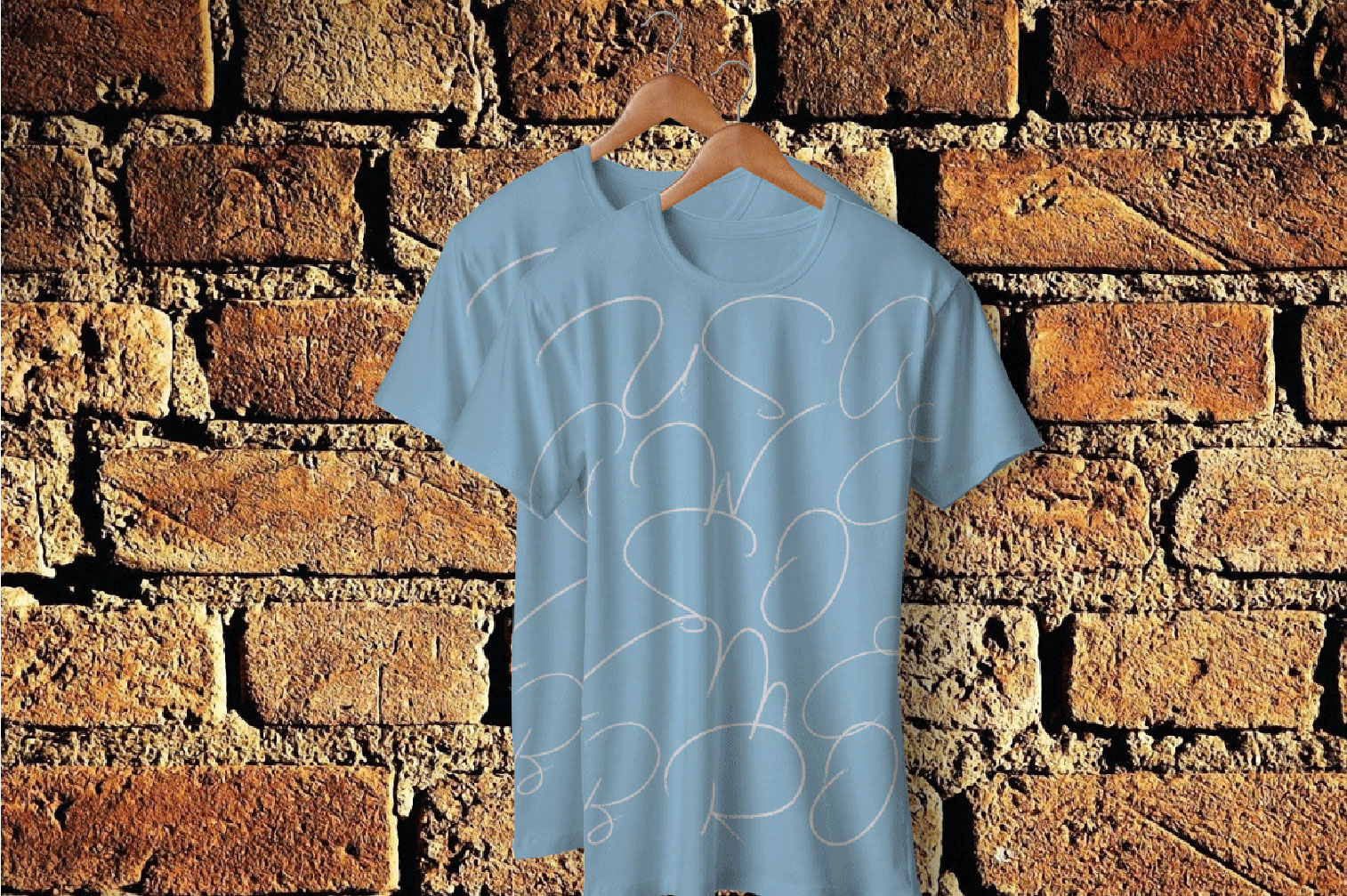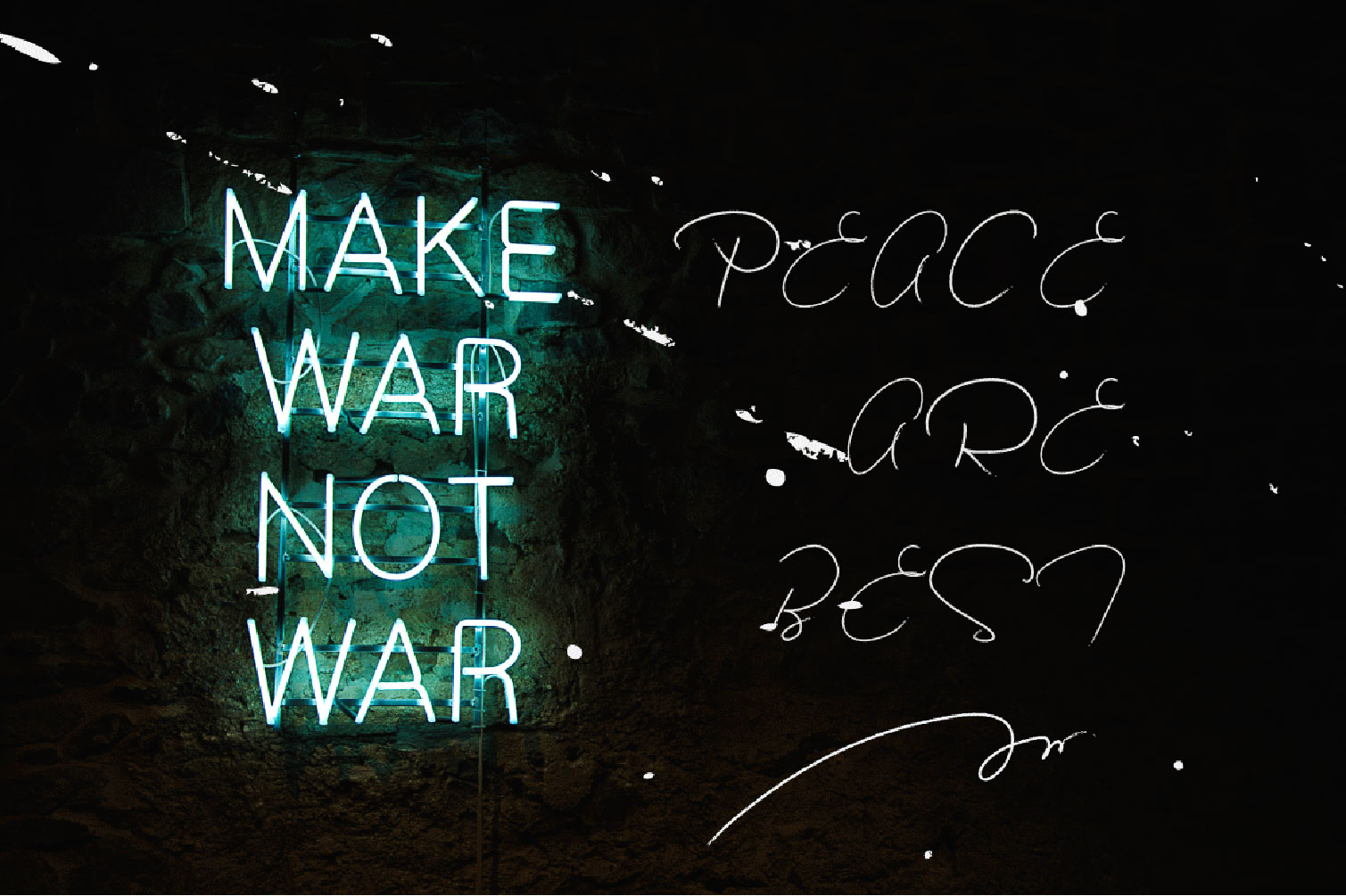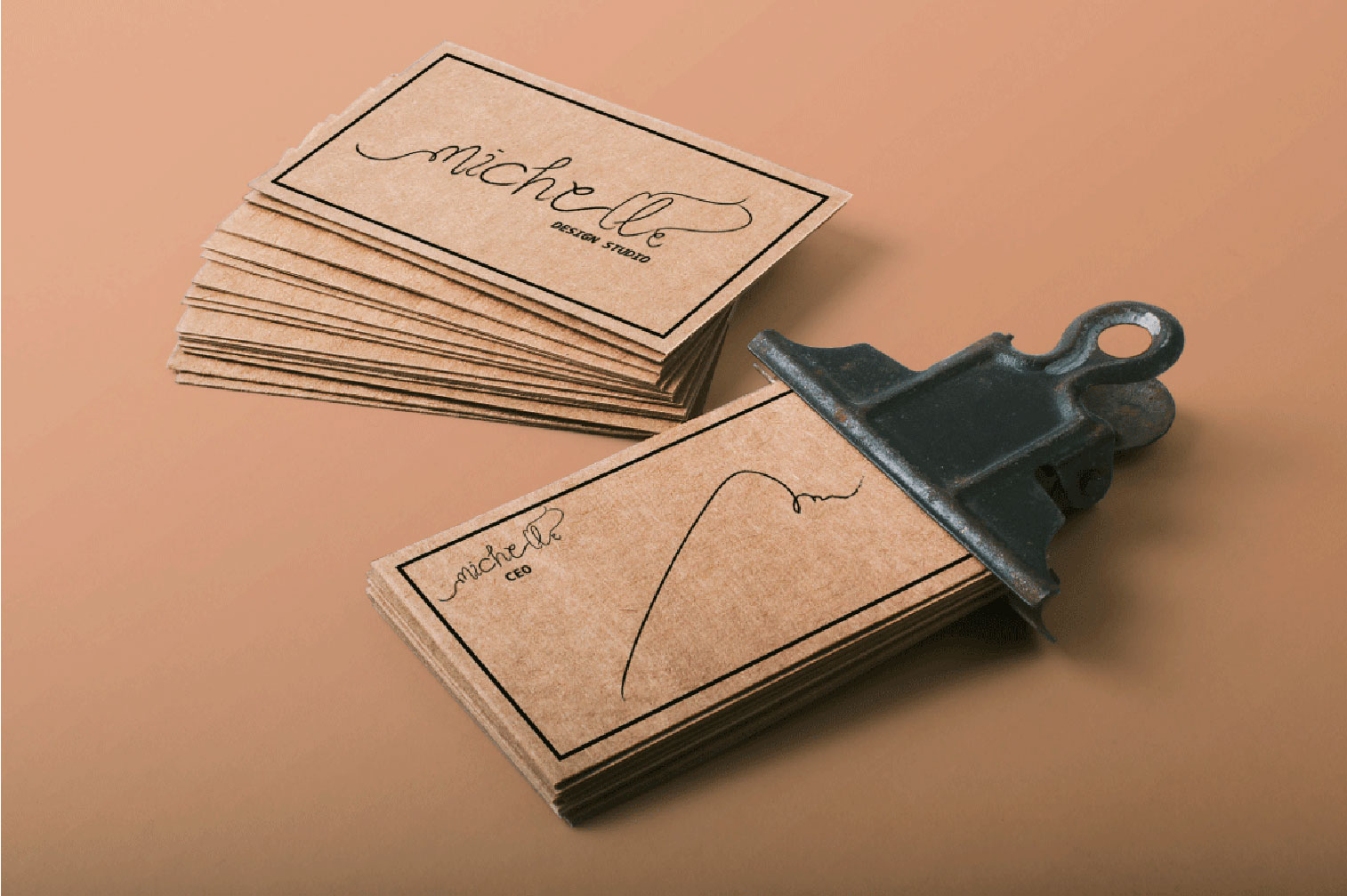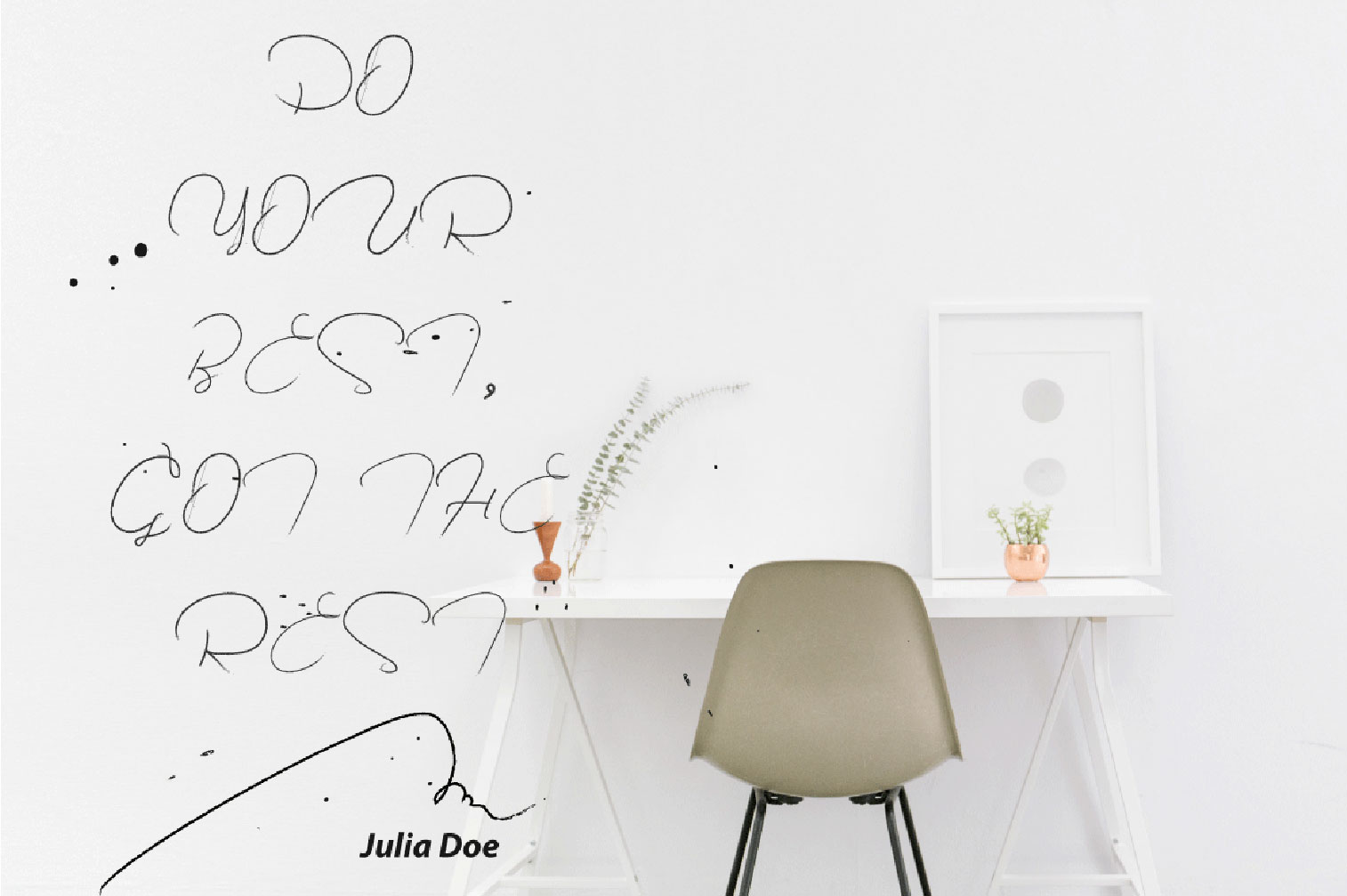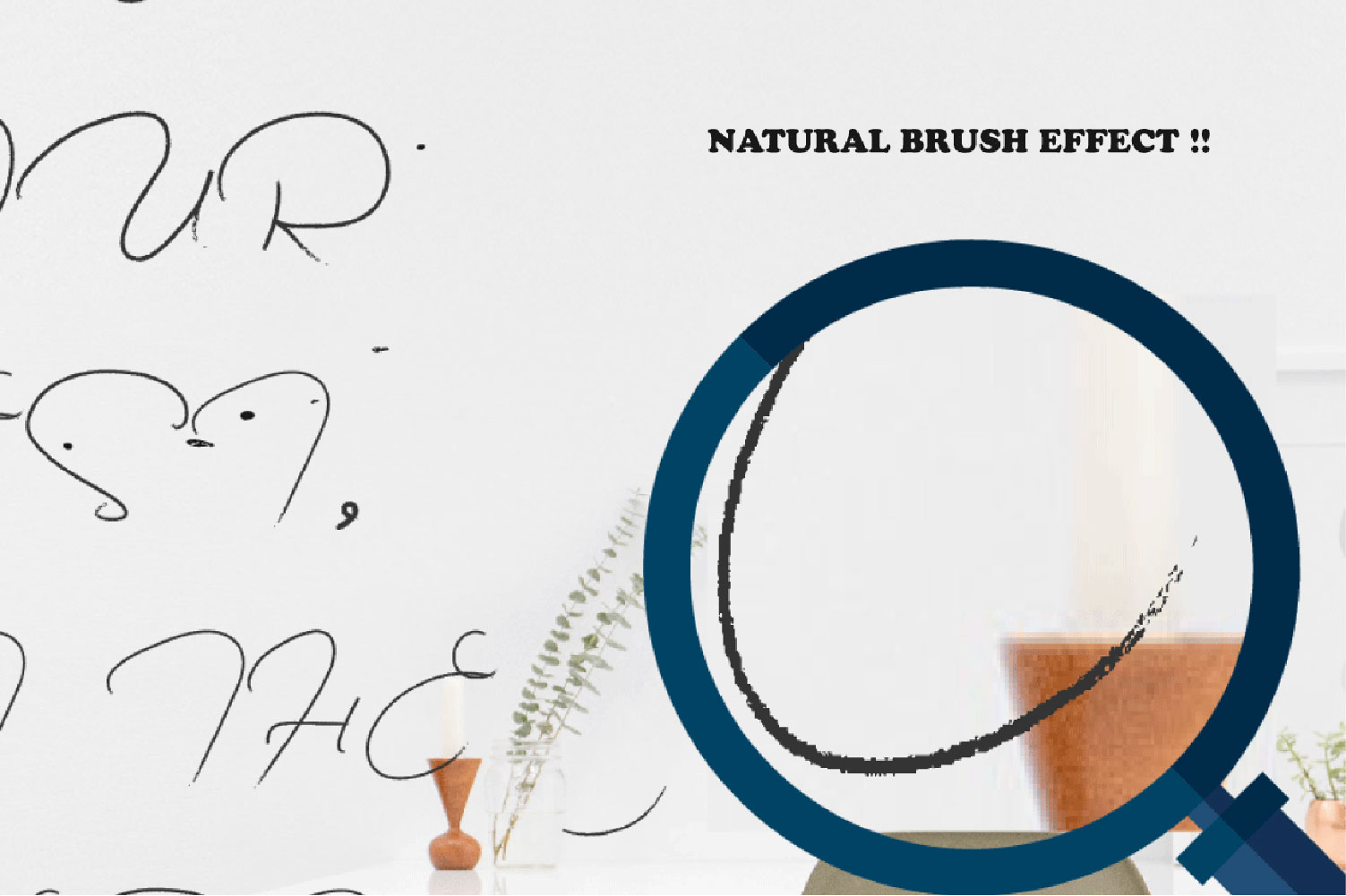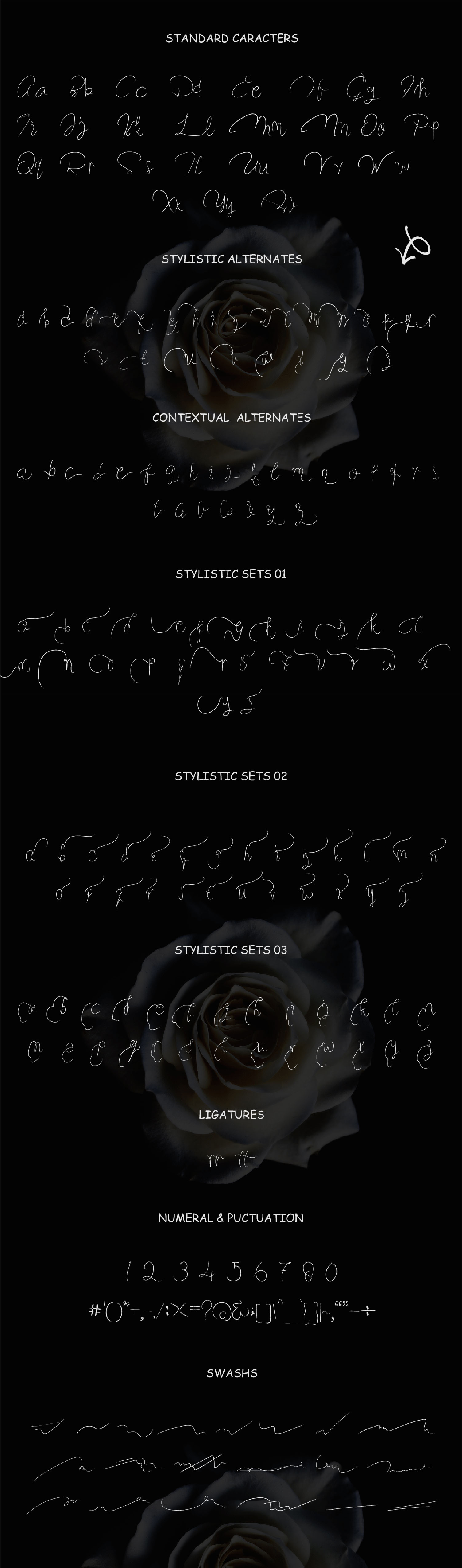
Introducing Chalky Voyage: The Elegant Calligraphy Font for Designers and Crafters
Are you a designer or crafter looking for a font that exudes elegance and sophistication? Look no further than Chalky Voyage, a beautiful handwritten script in a calligraphy style. This expressive font is perfect for creating designs that need a combination of impact and elegance, making it ideal for a wide range of projects, from wedding invitations and branding materials to packaging and advertising.
The Characteristics of Chalky Voyage
Chalky Voyage is a unique and eye-catching font that boasts a range of characteristics that set it apart from other fonts. Its calligraphy style gives it a sense of fluidity and movement, while its handwritten script makes it feel personal and approachable. The font’s expressive nature means that it can be used to convey a range of emotions and moods, from elegance and sophistication to playfulness and whimsy.
What Makes Chalky Voyage So Versatile?
One of the things that makes Chalky Voyage so versatile is its ability to be used in a wide range of design projects. Whether you’re creating a logo, a brochure, or a social media graphic, this font is sure to make a statement. Its elegant and sophisticated feel makes it perfect for high-end brands and luxury products, while its playful and whimsical nature makes it ideal for more creative and artistic projects.
The Benefits of Using Chalky Voyage
So why should you choose Chalky Voyage for your design projects? Here are just a few benefits of using this amazing font:
- Elegance and sophistication: Chalky Voyage adds a touch of elegance and sophistication to any design project, making it perfect for high-end brands and luxury products.
- Expressive and versatile: This font is highly expressive and versatile, making it suitable for a wide range of design projects and applications.
- Easy to read: Despite its elegant and cursive nature, Chalky Voyage is easy to read and understand, making it perfect for body text and headings.
- Unique and eye-catching: This font is sure to make a statement and grab attention, making it perfect for designers and crafters who want to stand out from the crowd.
How to Use Chalky Voyage in Your Design Projects
Using Chalky Voyage in your design projects is easy. Here are a few tips to get you started:
- Pair it with a sans-serif font: Pairing Chalky Voyage with a sans-serif font like Arial or Helvetica creates a beautiful contrast and adds visual interest to your design.
- Use it for headings and titles: Chalky Voyage is perfect for headings and titles, where its elegant and sophisticated feel can really shine.
- Experiment with different colors: This font looks great in a range of colors, from bold and bright to soft and pastel. Experiment with different colors to find the one that works best for your design.
Chalky Voyage is a beautiful and expressive font that is perfect for designers and crafters who want to add a touch of elegance and sophistication to their design projects. With its calligraphy style and handwritten script, this font is sure to make a statement and grab attention. Whether you’re creating a logo, a brochure, or a social media graphic, Chalky Voyage is a versatile and eye-catching font that is sure to impress.
Get Ready to Take Your Designs on a Chalky Voyage!